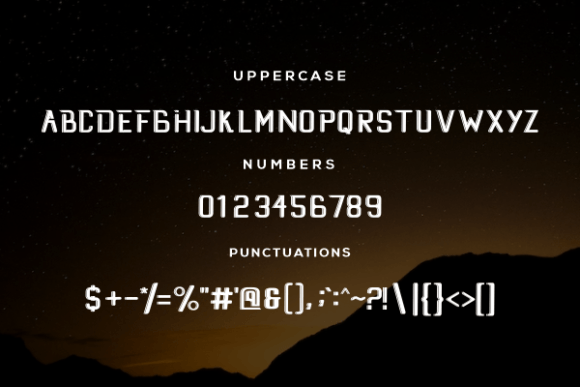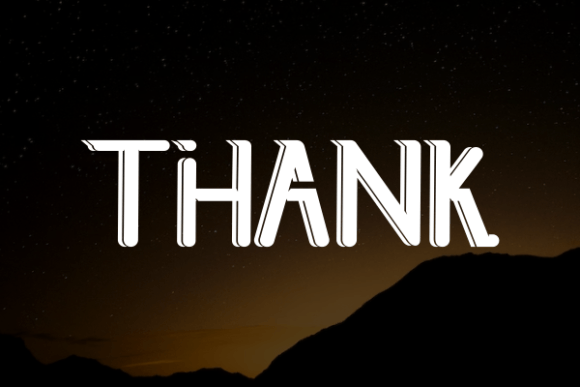
Introduction to Quindex Font
You’ve spent hours pouring your heart and soul into a creative project, from the initial concept to the final design. The colors, the layout, the typography – everything comes together in perfect harmony. But, what if one simple element could elevate your design to the next level? That’s where the Quindex Font comes in – a modern sans serif font that’s about to become your new go-to design resource.
Whether you’re working on a branding project, a website, or a social media campaign, the Quindex Font has the potential to enhance any creation. Its clean lines, high-quality design, and versatility make it the perfect choice for designers looking to add a touch of sophistication to their work. And, the best part? You can download the Quindex Font for free, giving you the freedom to experiment with it on any project you have in mind.
Key Features of Quindex Font
- High-quality, professional font perfect for creative projects requiring a unique touch
- Unique characteristics: elegant, modern, and sophisticated design, making it suitable for luxury brands and high-end creative projects
- Can be used as a design resource for various mediums, including print, digital, and web-based applications
Honest Review: Quindex Font
As a designer, I’m always on the lookout for high-quality fonts to elevate my creative projects. Recently, I stumbled upon the Quindex Font, and I’m excited to share my honest review.
What works well: ✨ The Quindex Font is a stunning addition to any design resource collection. Its sleek, modern design makes it perfect for creating a professional and sophisticated look. I love how versatile it is, suitable for both digital and print projects.
- High-quality font with a transparent background
- Perfect for creative projects, such as logos, brochures, and business cards
What doesn’t work well: ⚠️ While the Quindex Font is overall impressive, I do wish it came in more weight options. Currently, it’s only available in light and regular weights, which can limit its use in certain projects.
Overall impression: I’m thoroughly impressed with the Quindex Font. Its modern design, high quality, and free download make it a fantastic addition to any designer’s toolkit. While it may have some limitations, I highly recommend giving it a try for your next creative project.
The Quindex Font is a high-quality design resource that offers a unique and creative touch to any project. With its transparent background, it can be easily integrated into various design applications.
To get the most out of the Quindex Font, experiment with different font sizes, colors, and combinations to create unique and eye-catching designs. Use the font in conjunction with other design elements to create a cohesive and professional look.
The Quindex Font is ideal for creative projects, such as logos, posters, and brochures. It can also be used for digital projects, such as website headers and social media graphics. With its high-quality design and transparent background, the Quindex Font is a versatile design resource that can be used in a variety of contexts.